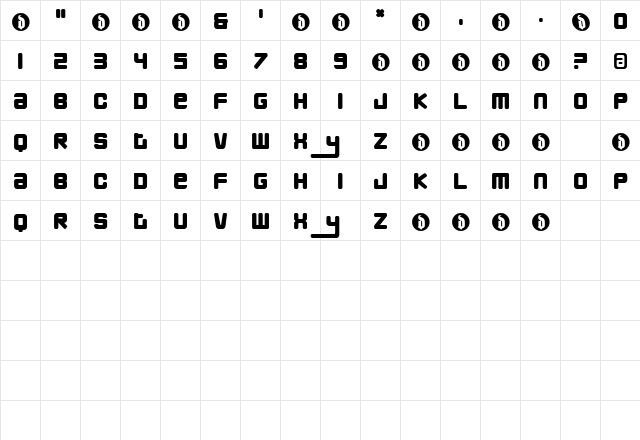
ThreeCubicFeet Regular
ThreeCubicFeet takes a measured approach to typography — its balanced proportions and neutral character make it a reliable workhorse for both digital and print work.